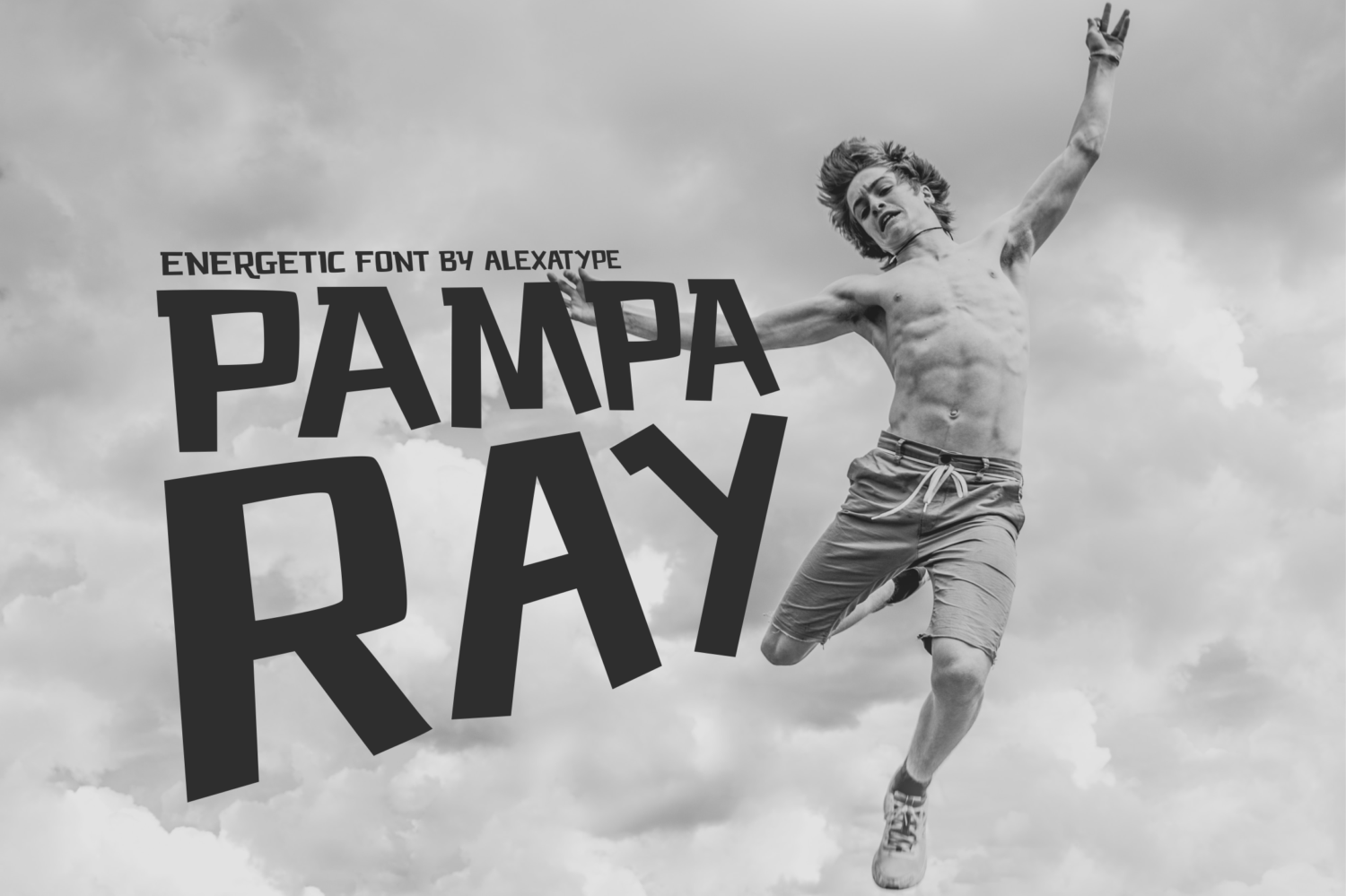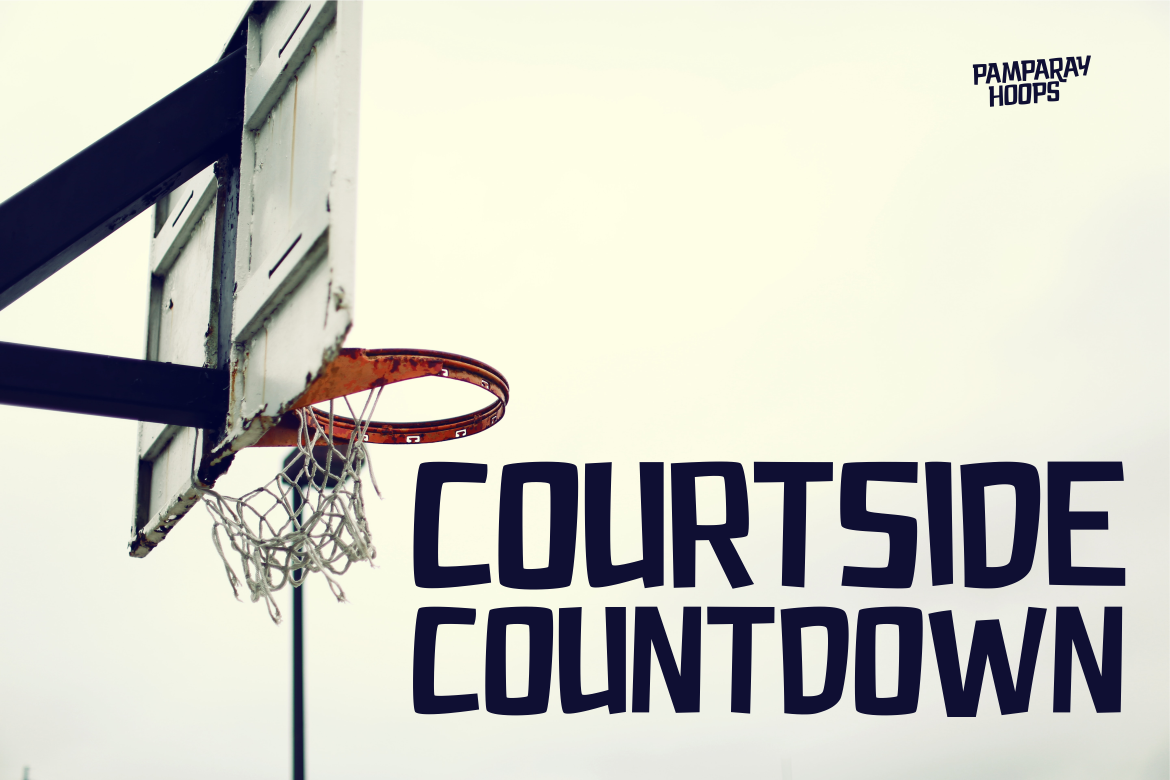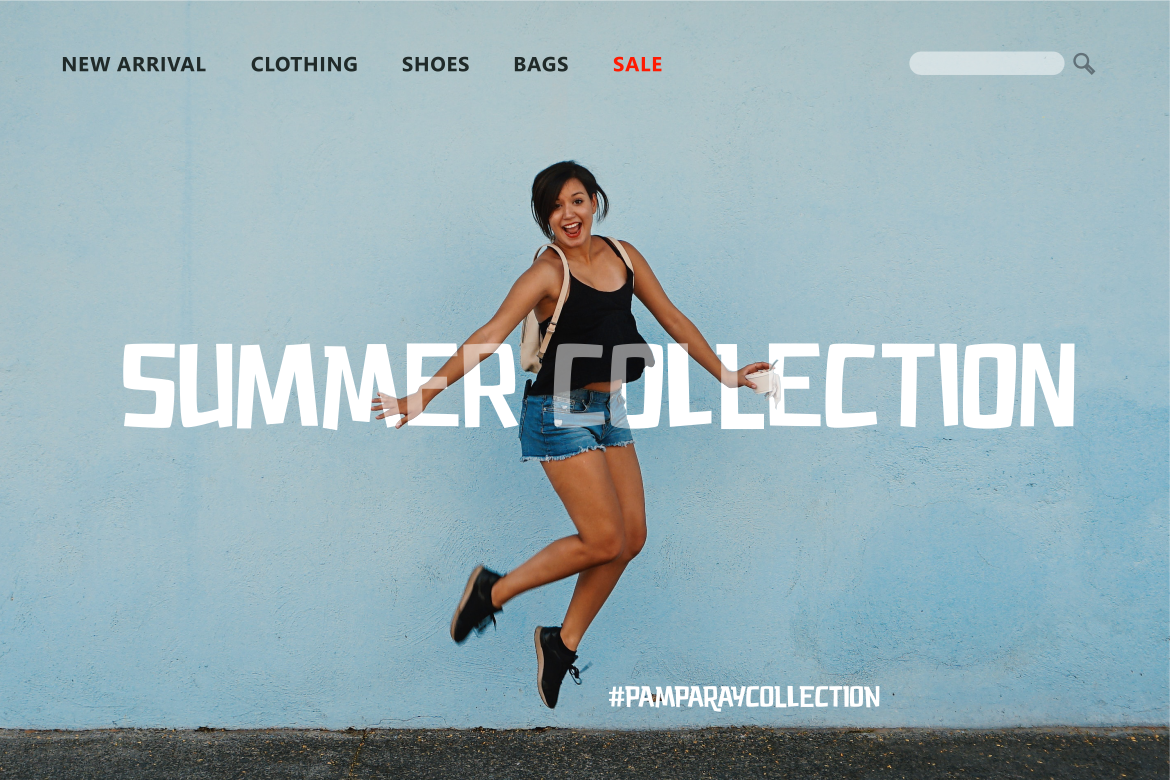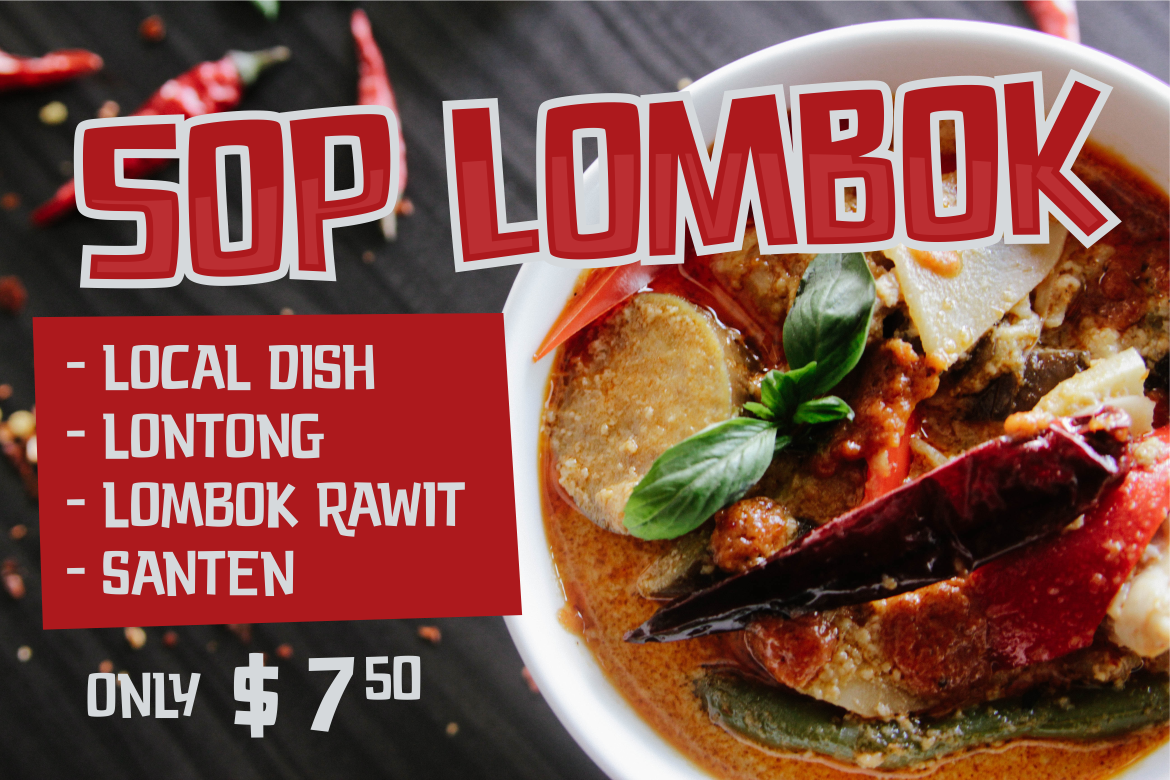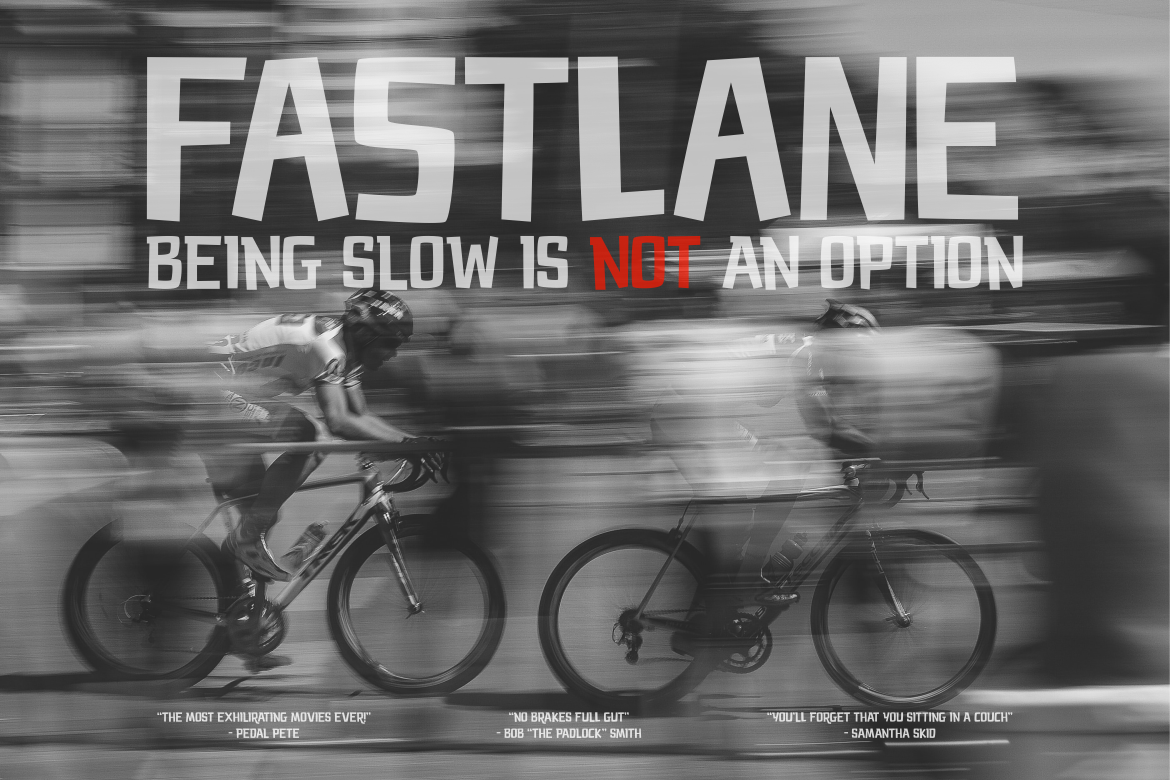
Free Font Pamparay
An all caps font with a slight difference between upper and lowercase, full of energy, with great read-ability shape. Perfect for any sport-related poster, headlines, and so on. This free typeface was designed by a talented Alexatype Foundry. If you like it don’t forget to check out the full version.